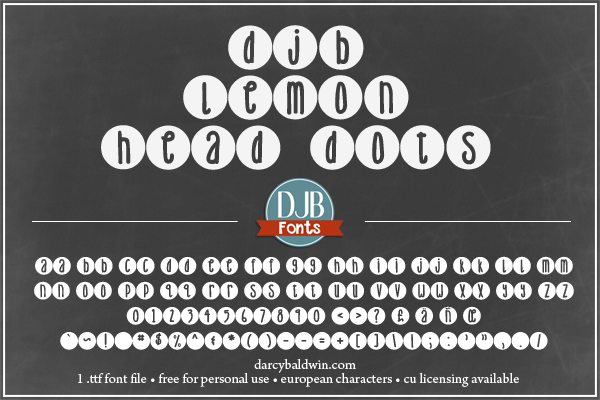
Font name: | DJB Lemon Head Dots |
A handwritten circle font that contains European language characters. This font is free for personal use only. If you'd like to purchase it for commercial use, please purchase a license at: http://darcybaldwin.com/commercial-use/ https://www.facebook.com/DarcyBaldwinFontography |